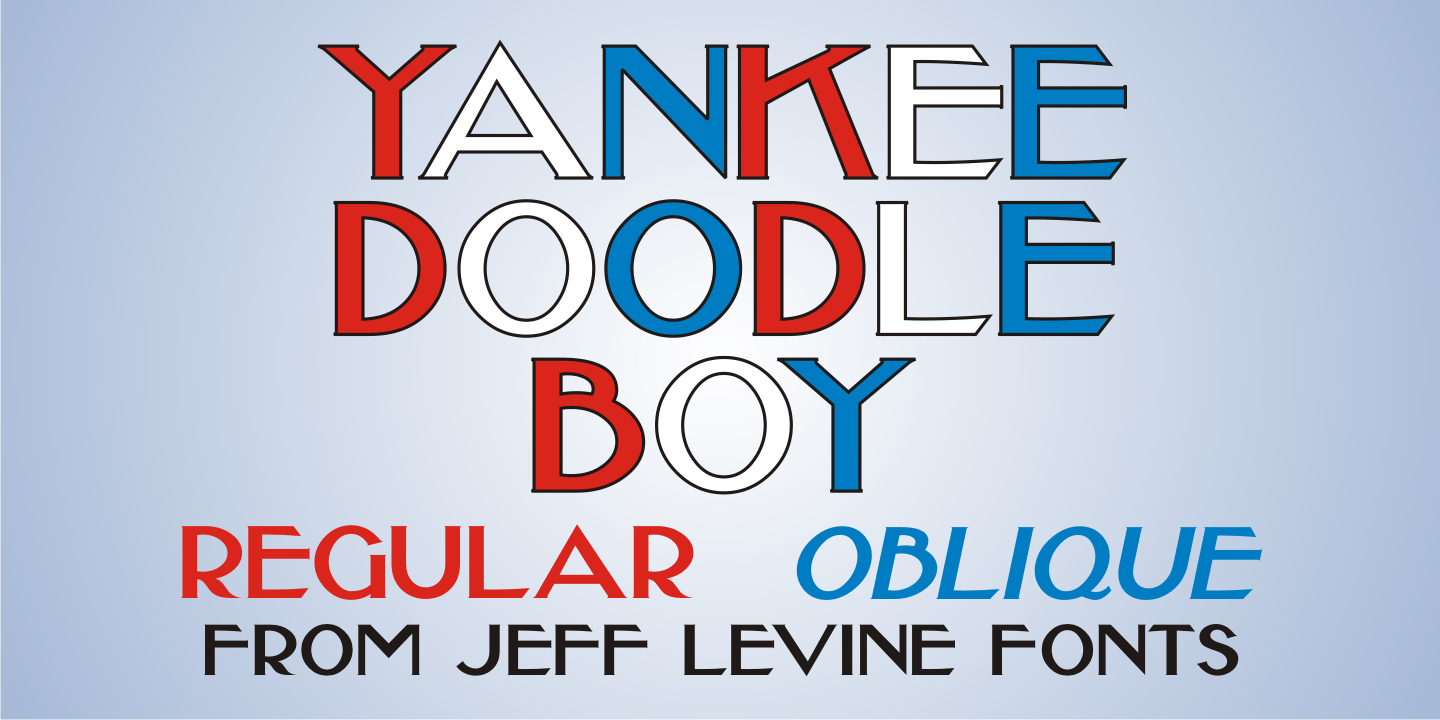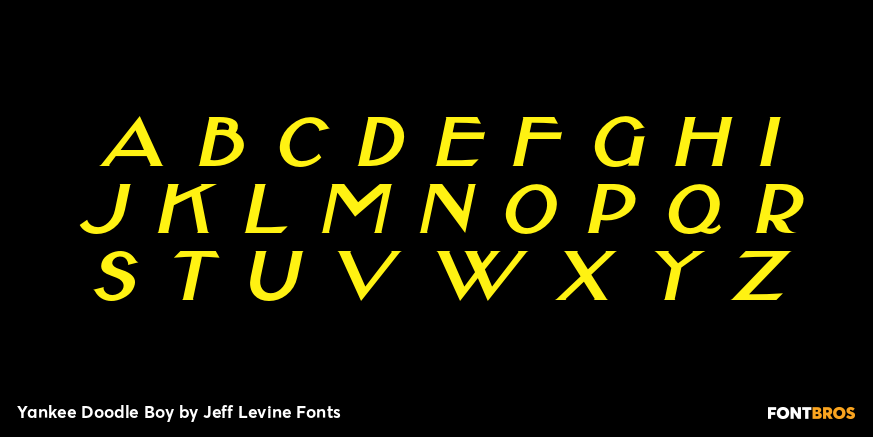
Yankee Doodle Boy
Buy NowIn the early years of the 20th Century, singer-dancer-actor-composer-playwright George M. Cohan was known as 'The Man Who Owned Broadway'. In 1904, Cohan was enjoying success with his latest creation, 'Little Johnny Jones'.
Cohan gave America what would become a number of iconic songs, and both he and his compositions were immortalized in the 1942 biographical film 'Yankee Doodle Dandy' starring James Cagney.
The Art Nouveau-influenced hand lettering of the title on the cover of the sheet music for 'The Yankee Doodle Boy' was the model for its namesake digital typeface design and is available in both regular and oblique versions.